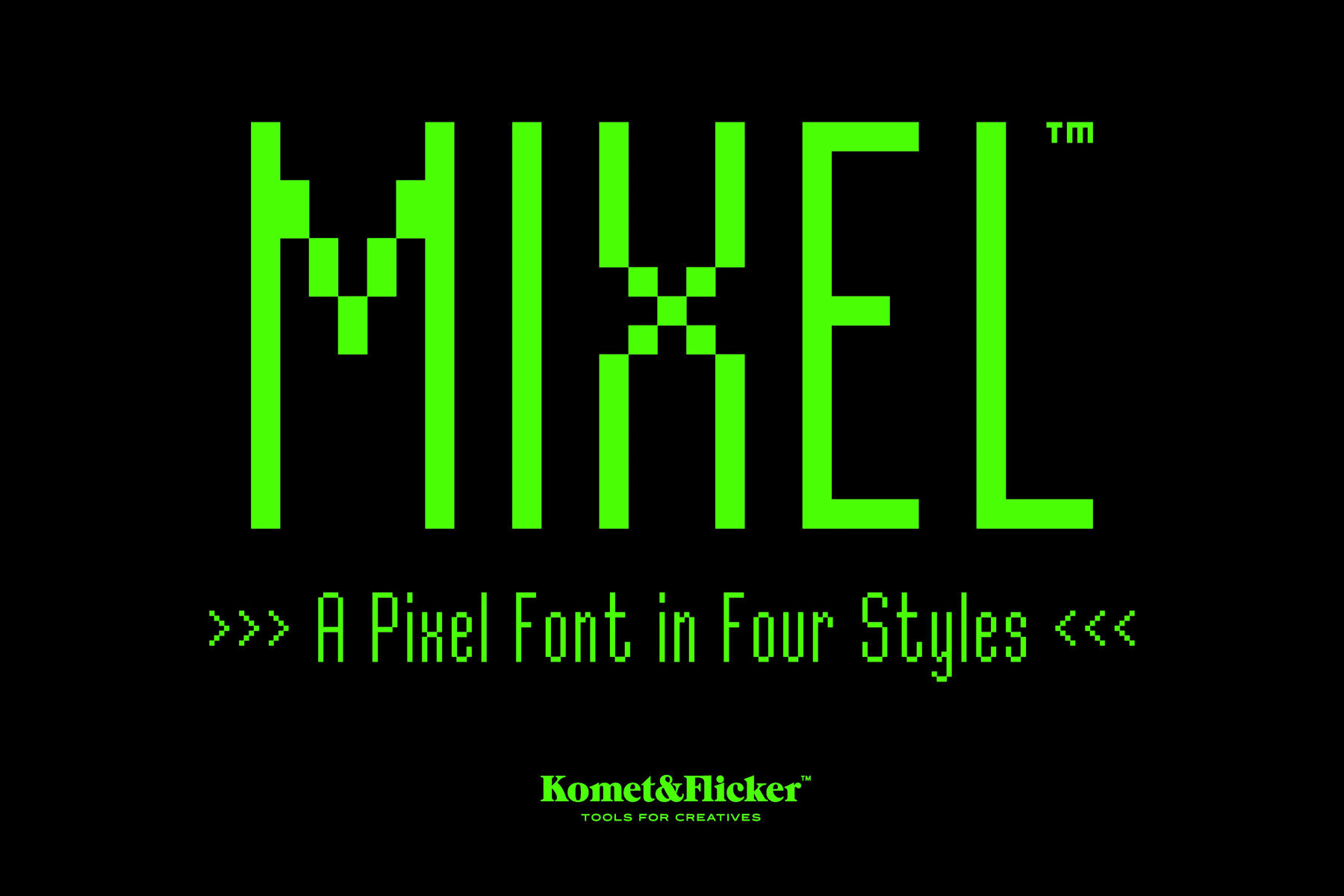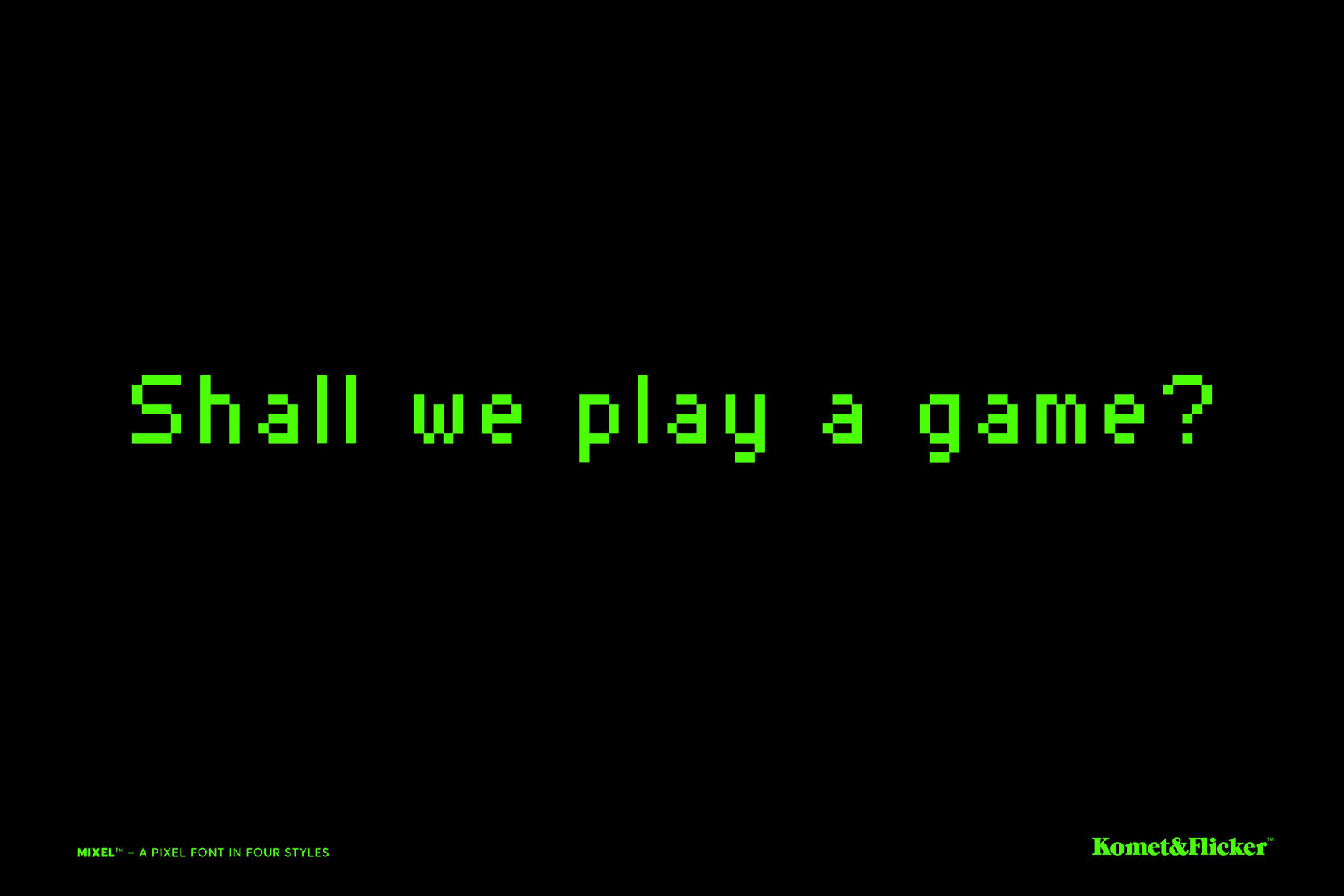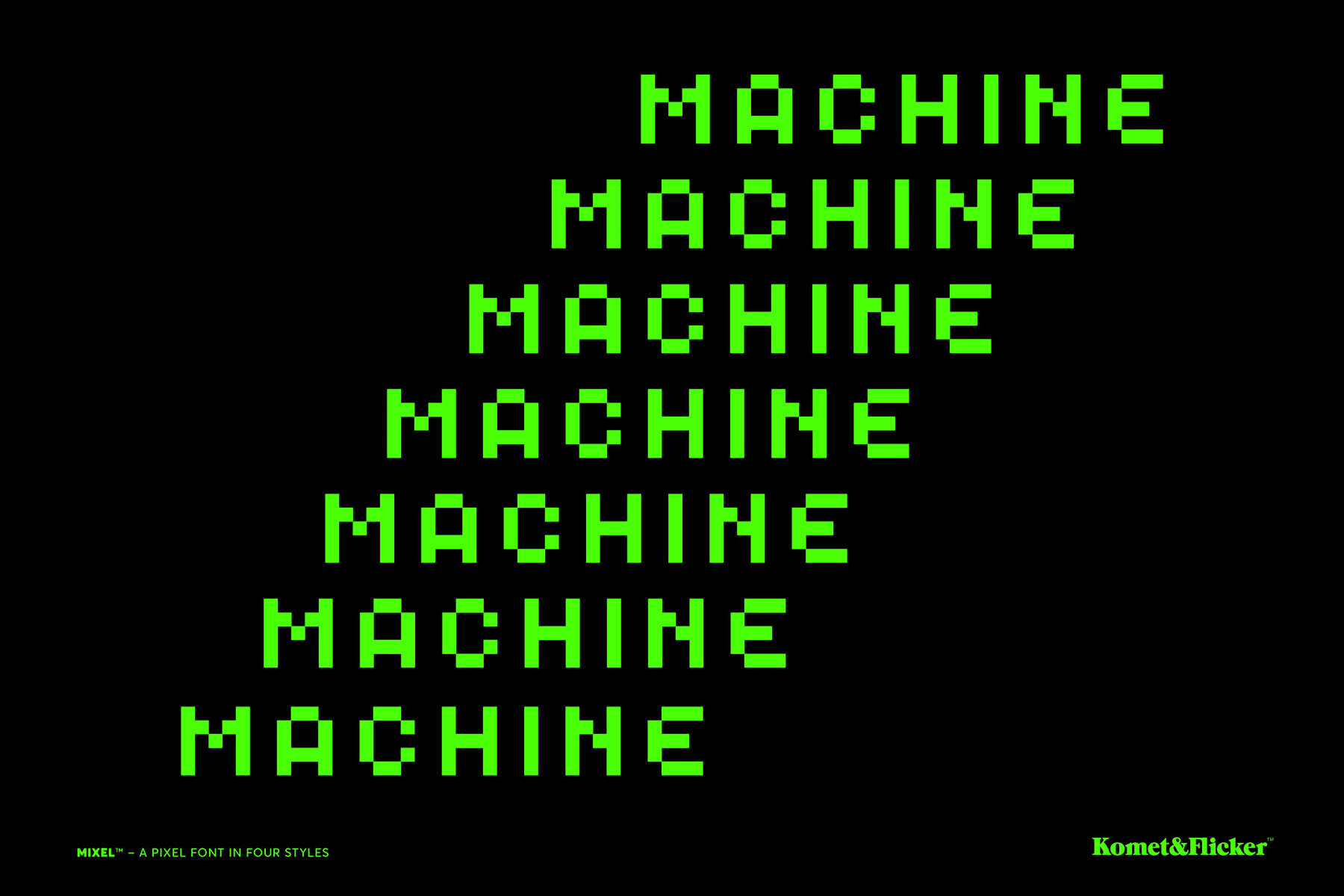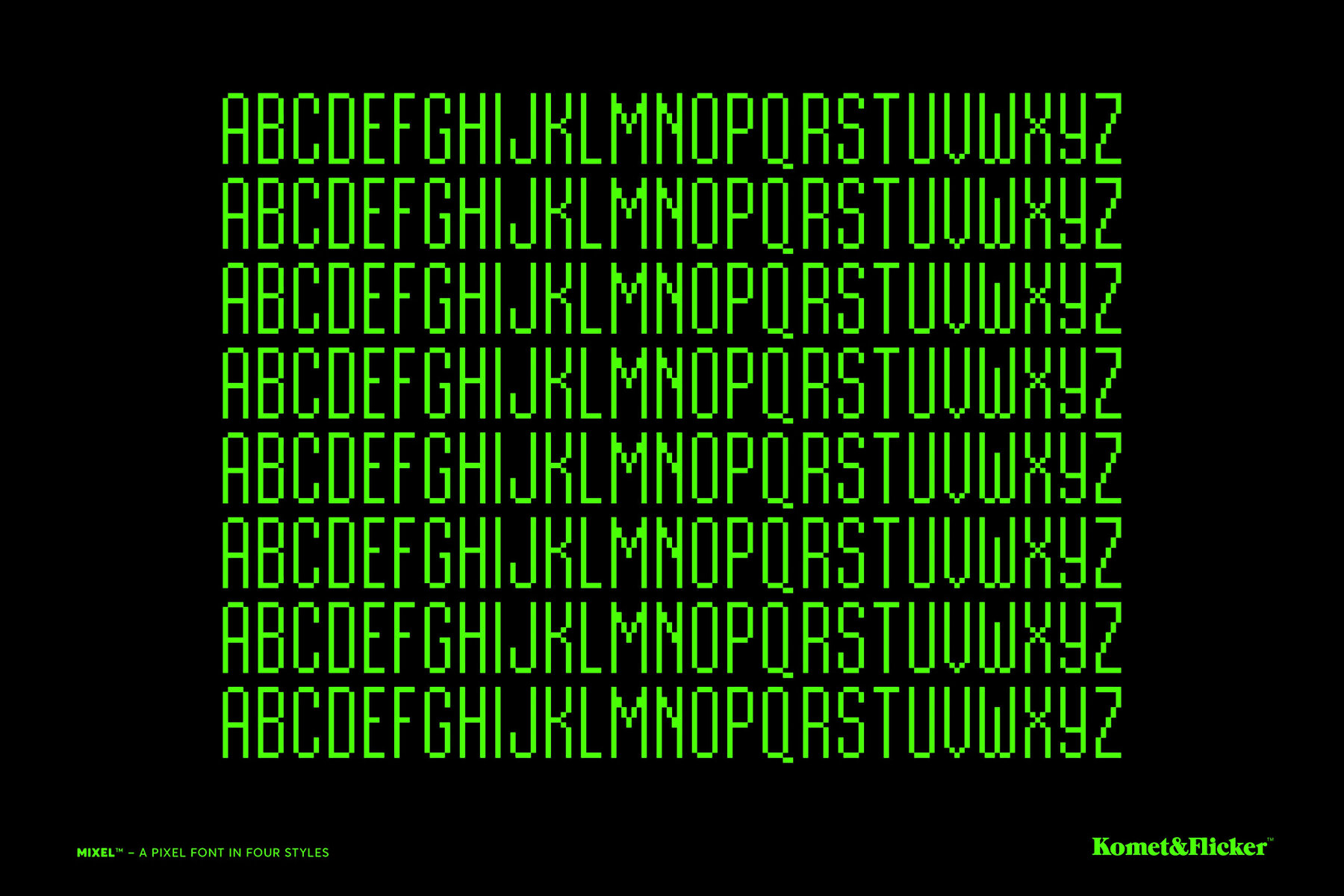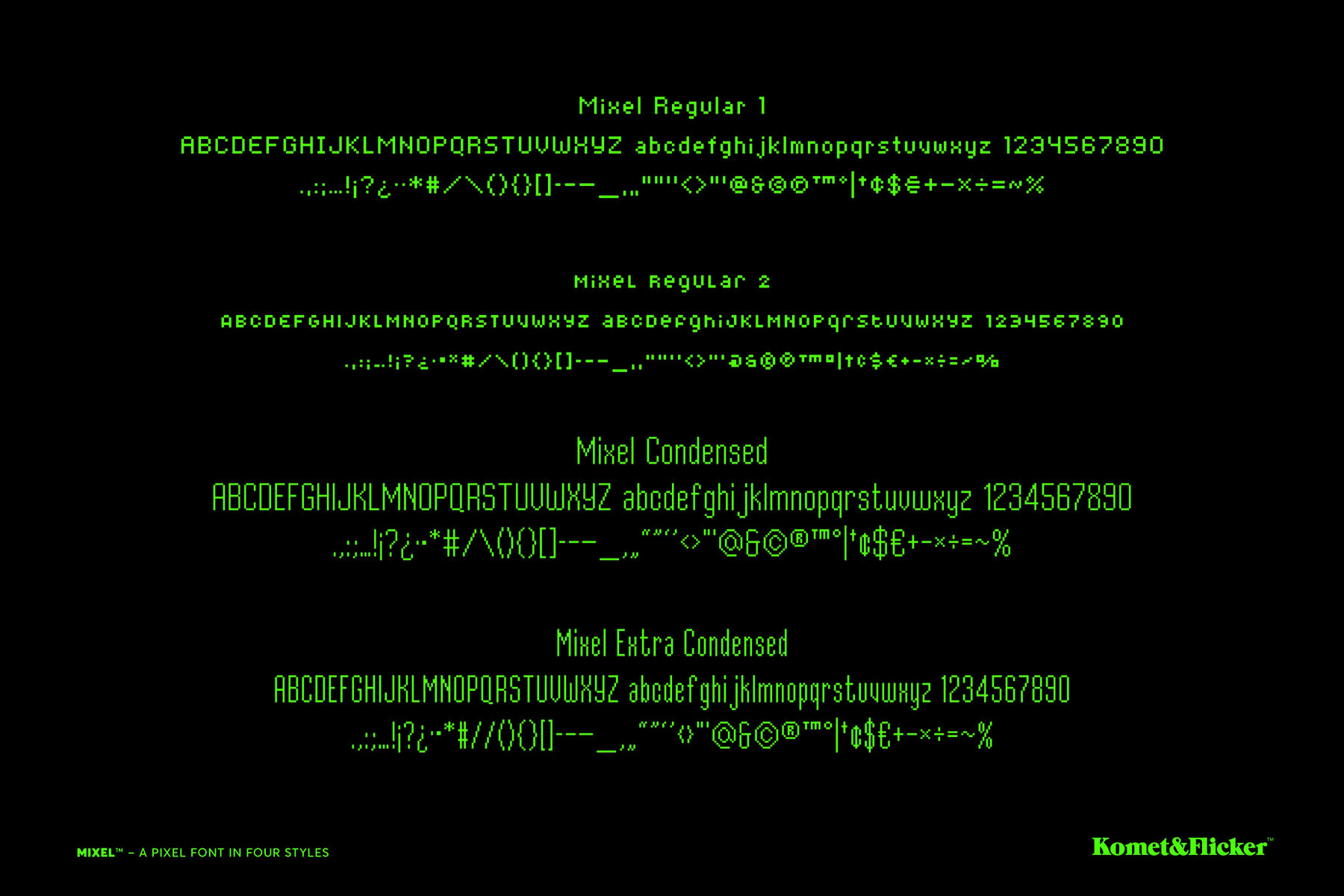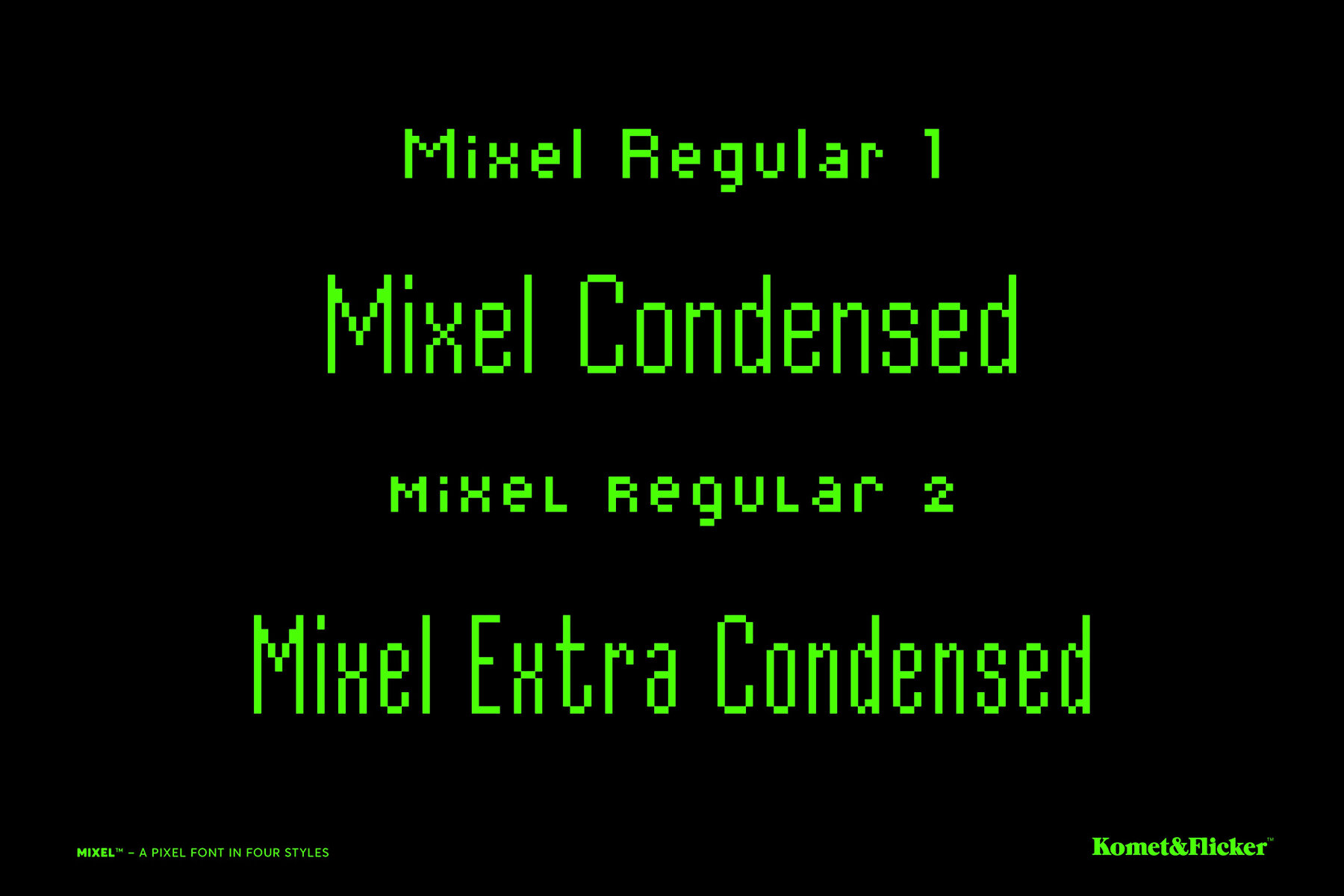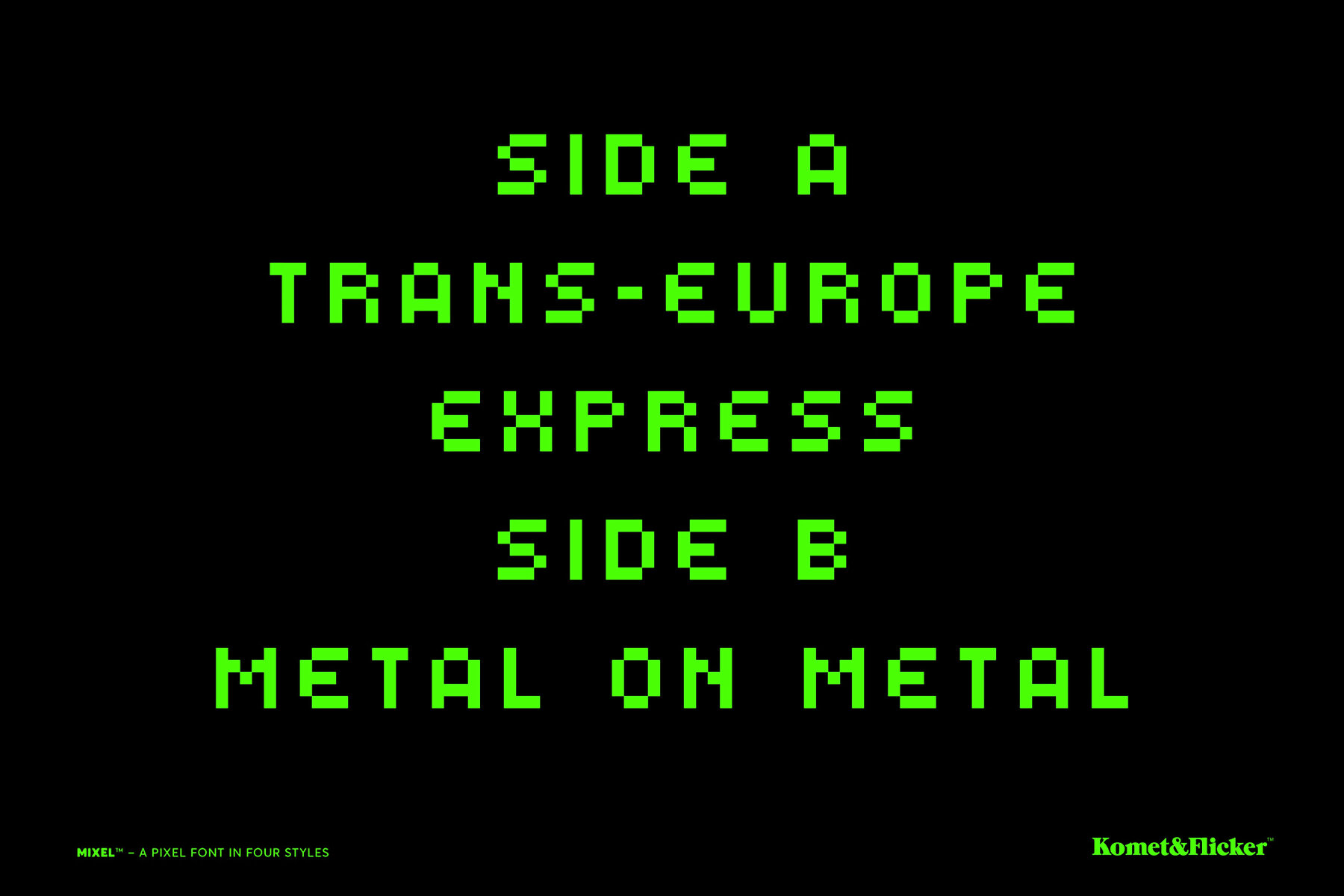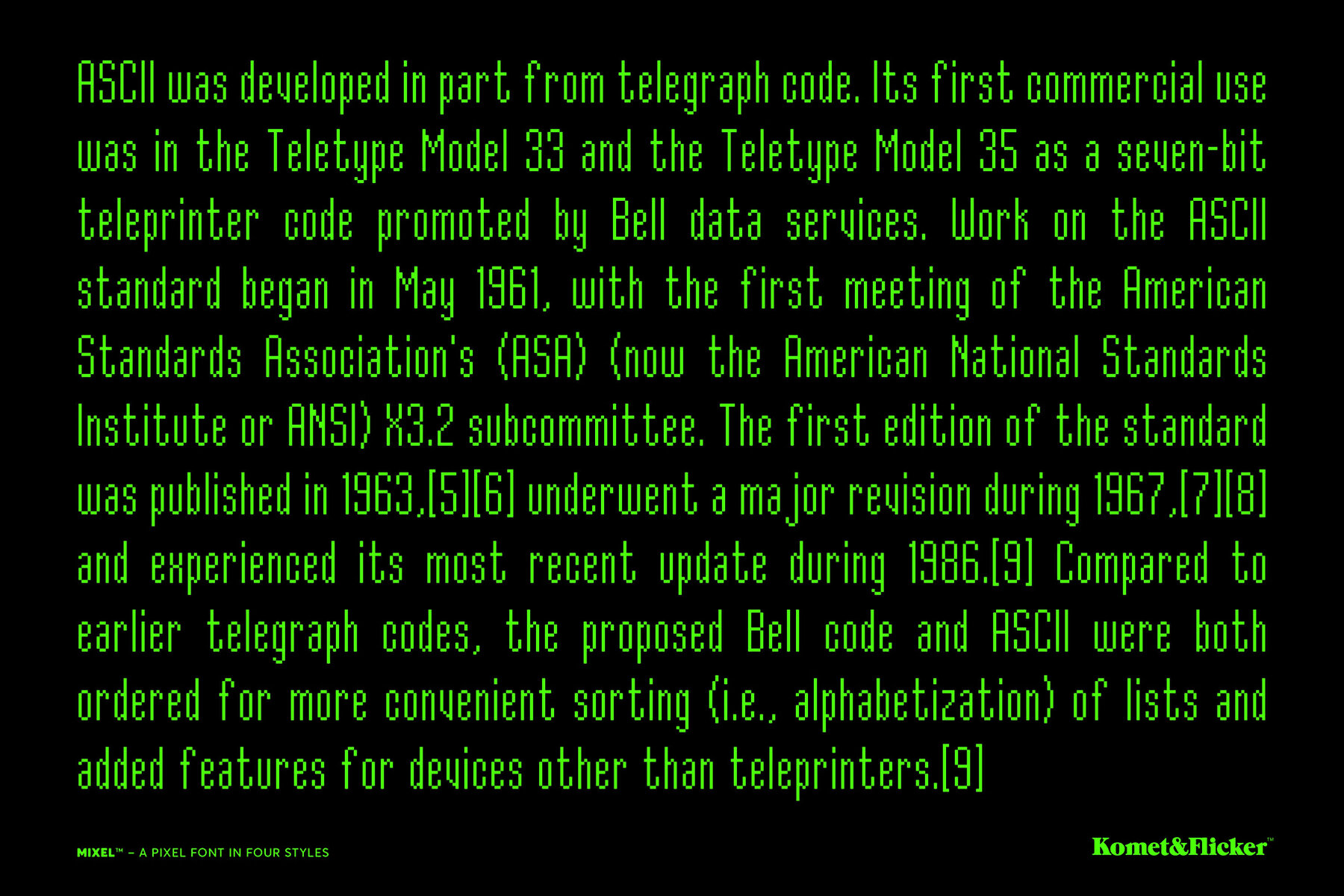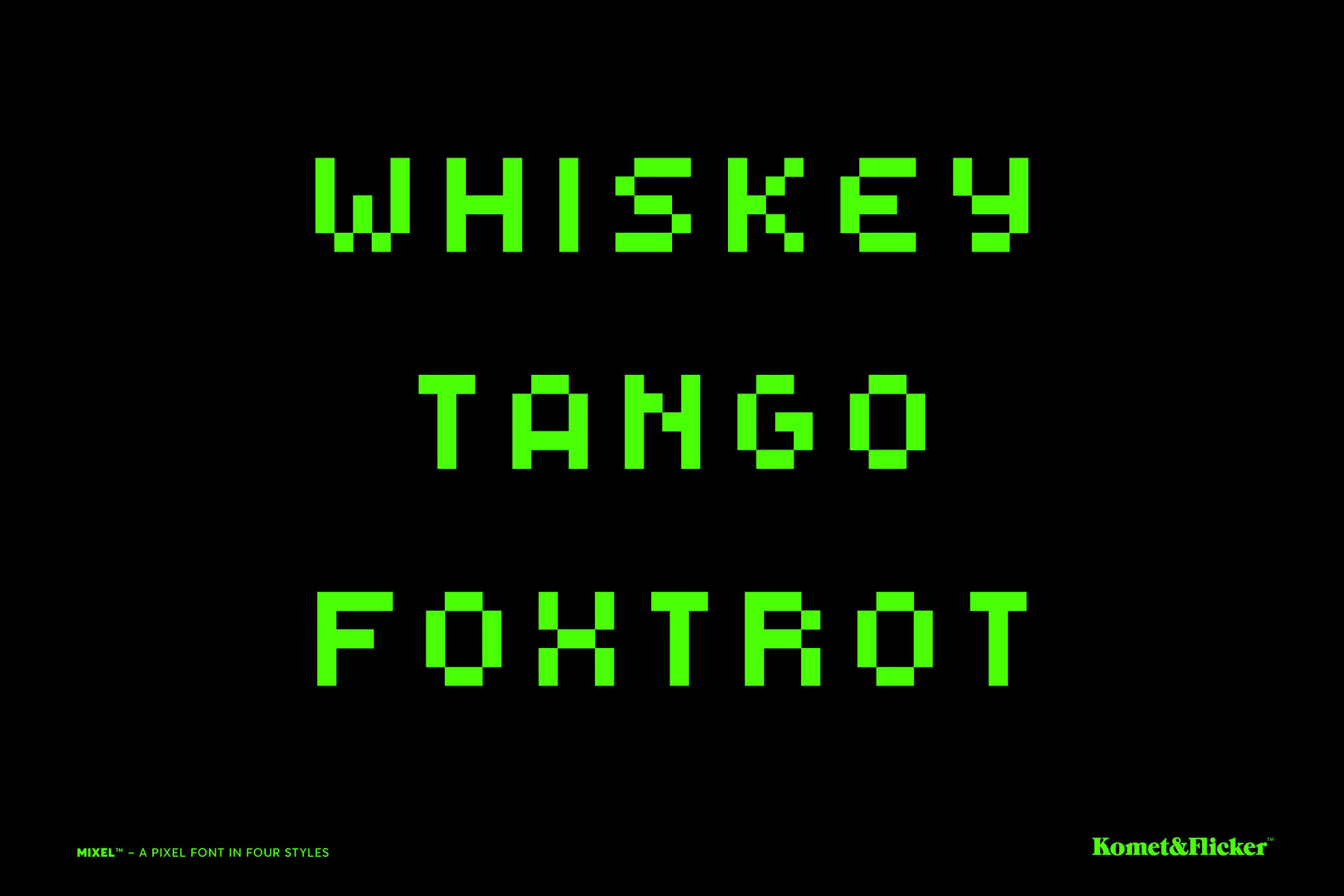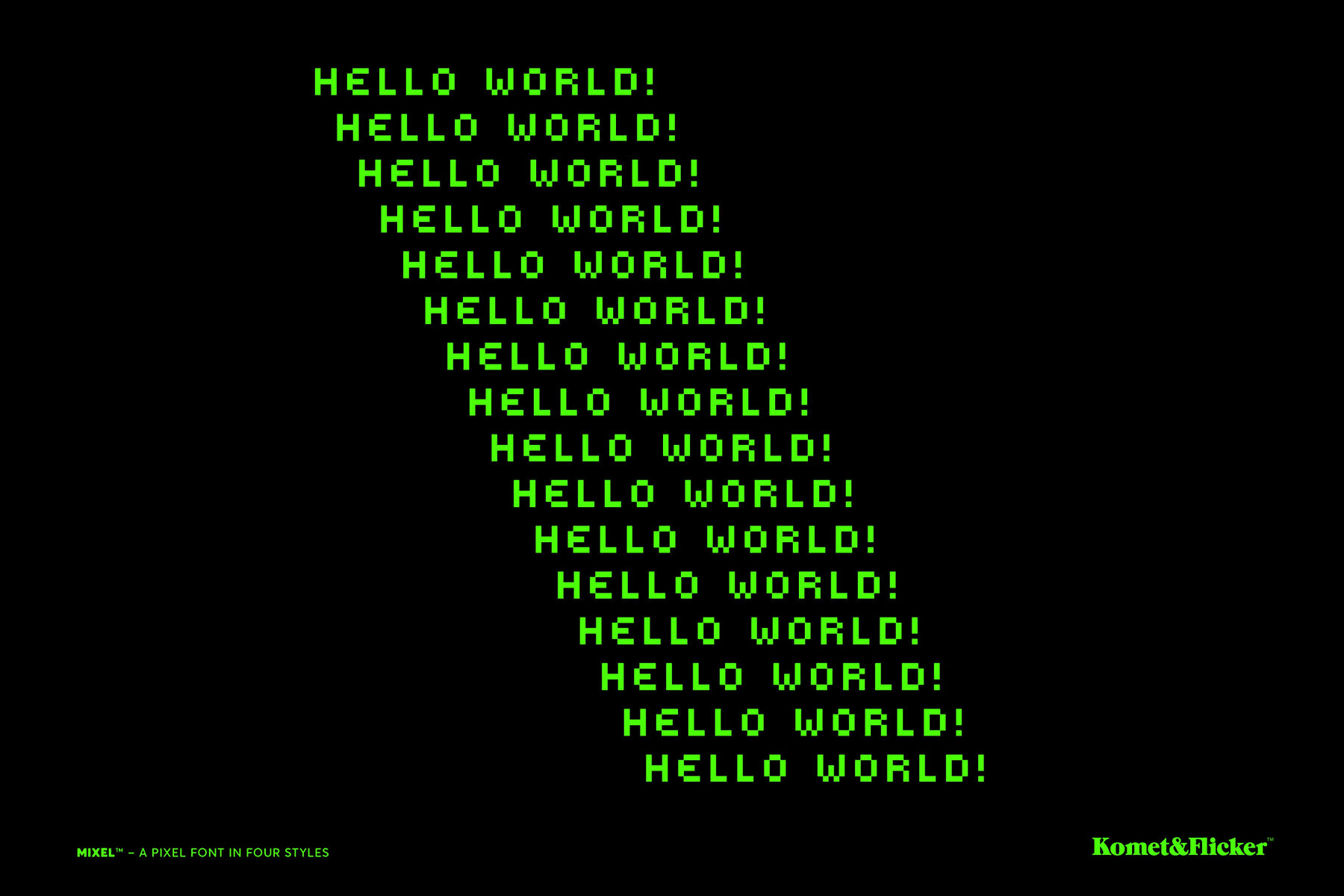
Mixel Font
Unleash your pixelated creativity with Mixel, the playful bitmap pixel font that transports you straight to the golden age of retro video gaming! Perfect for designers looking to add a nostalgic touch to their projects, Mixel comes in four distinct styles (two regular and two condensed) giving you the flexibility to choose the perfect look for your design. Mixel features both upper and lowercase letters, ensuring that your text stands out while maintaining that charming pixelated aesthetic. Whether you're crafting a vibrant game interface, designing eye-catching posters, or adding a quirky flair to your website, Mixel delivers a delightful retro vibe that’s sure to captivate. Get ready to level up your typography game with Mixel – where nostalgia meets modern creativity!